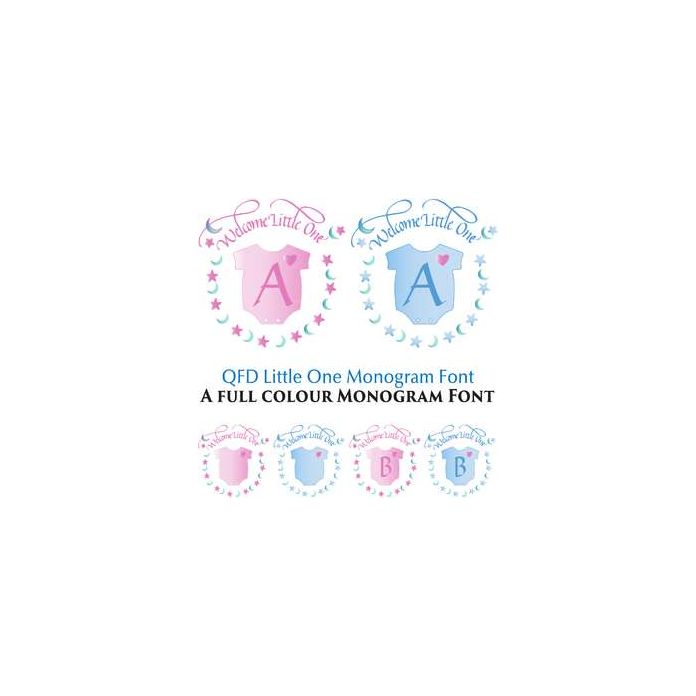
This fun font is two sets in one font! Upper case letters have the pink monograms and the lower case letters have the blue monograms. To access the blue numbers, press Shift and choose the number. Access the blank monograms with the period and the comma.